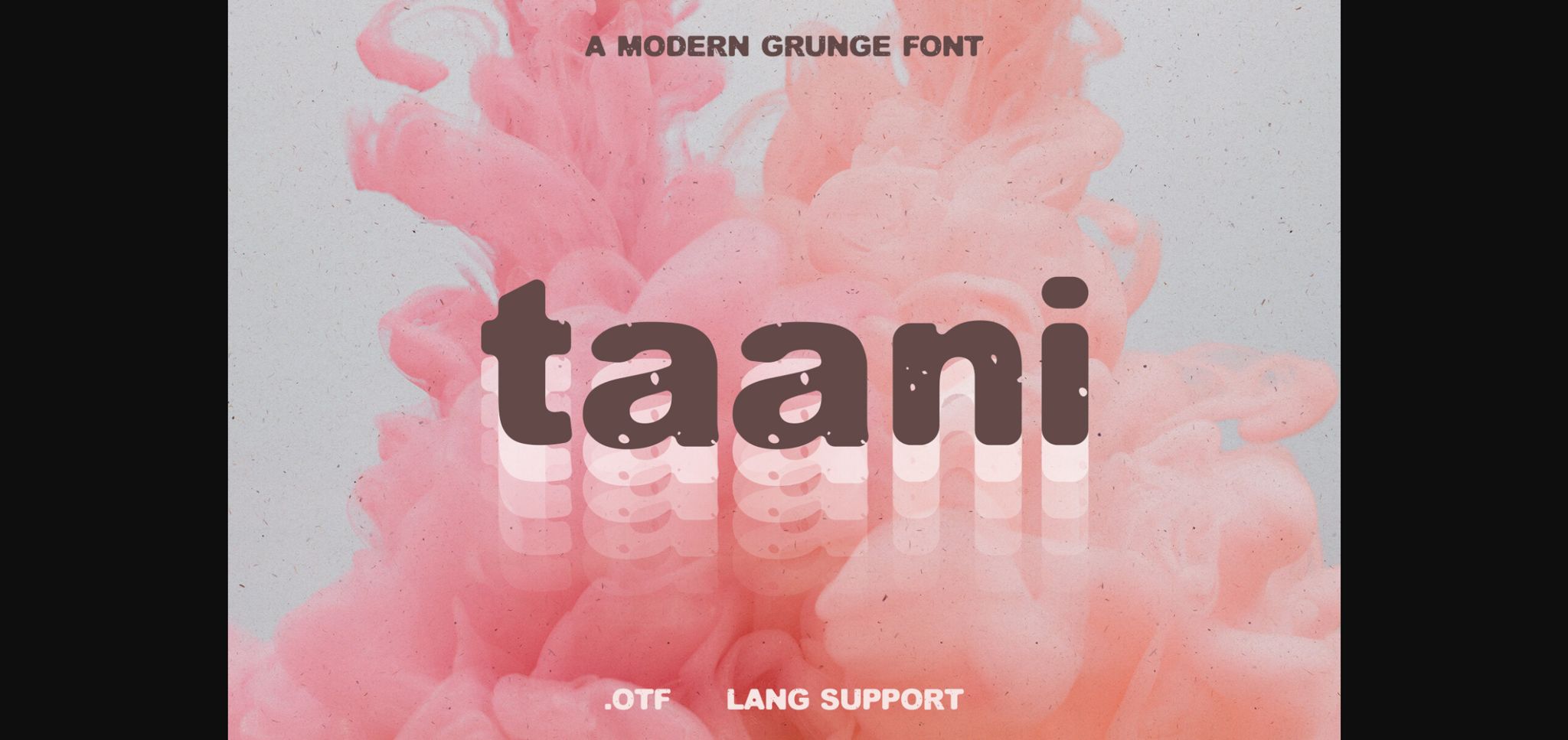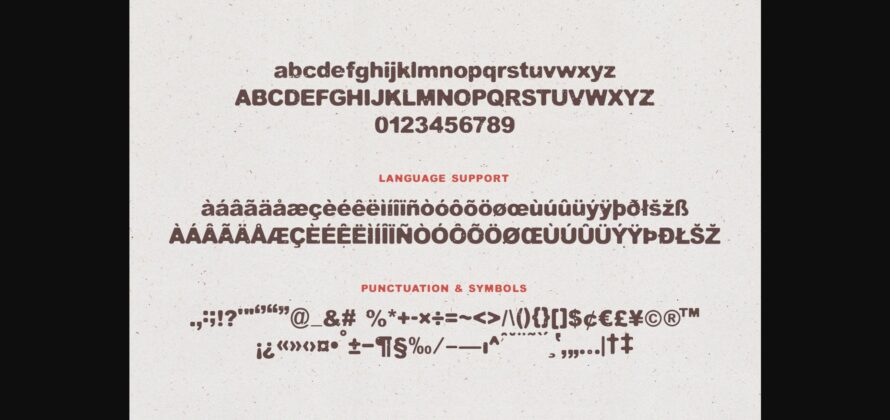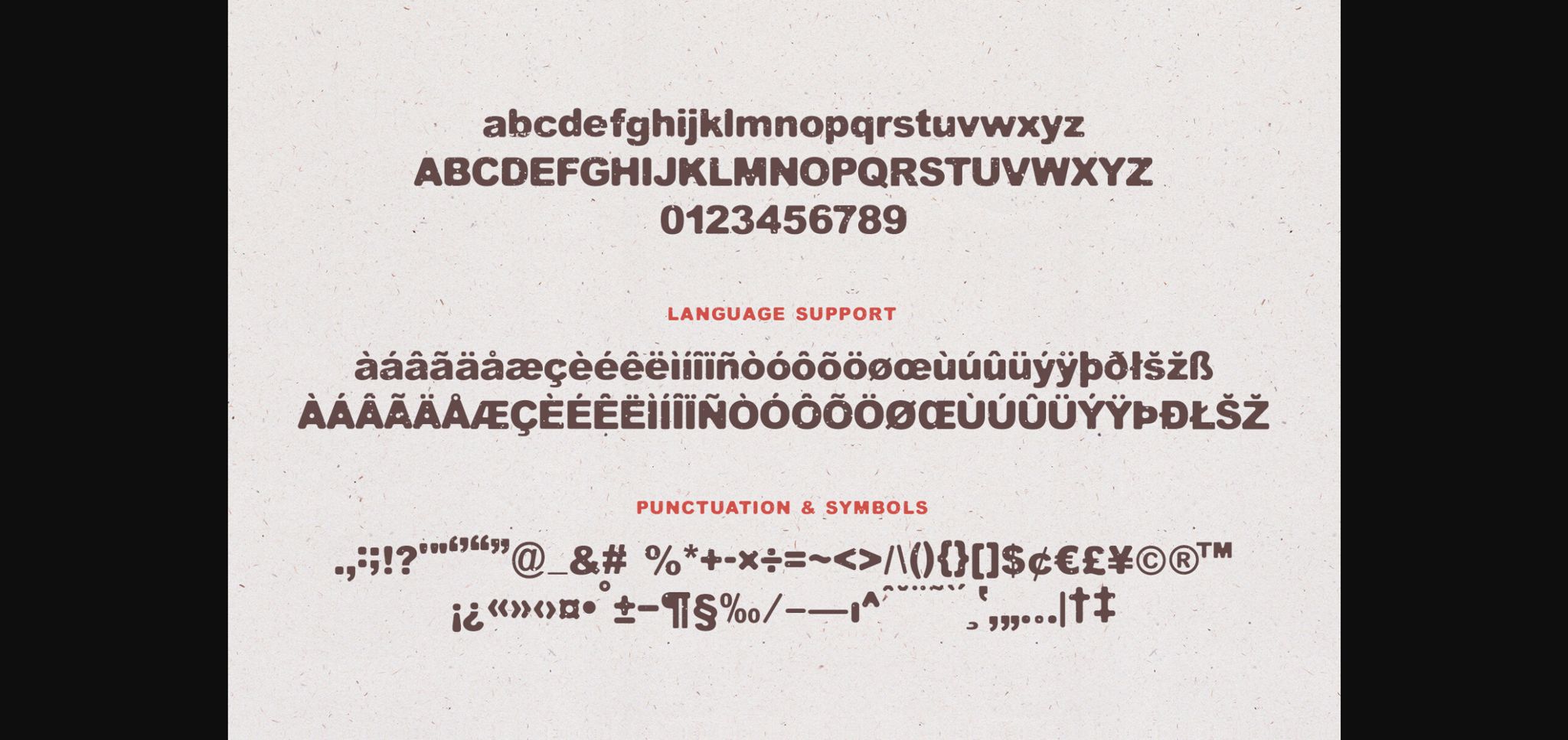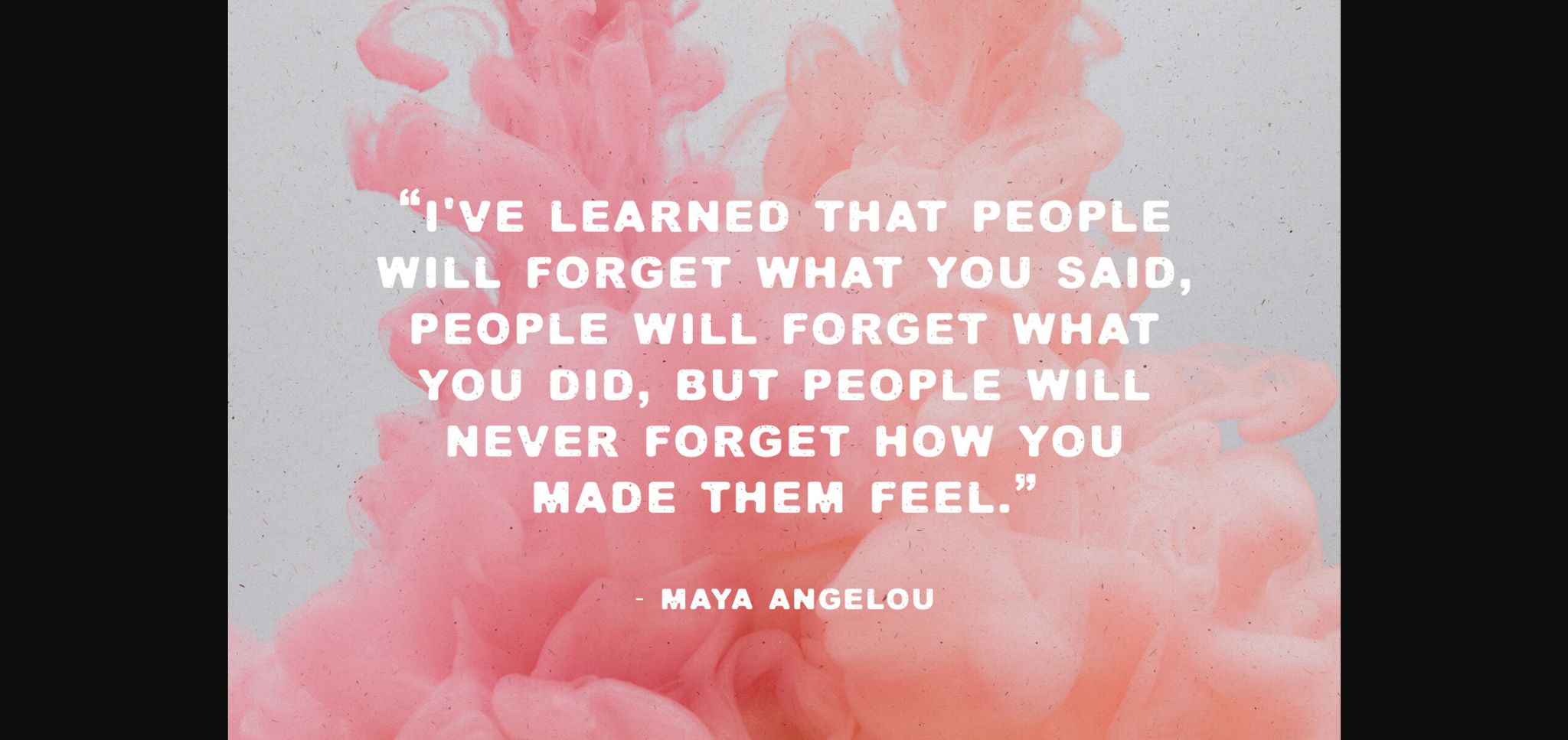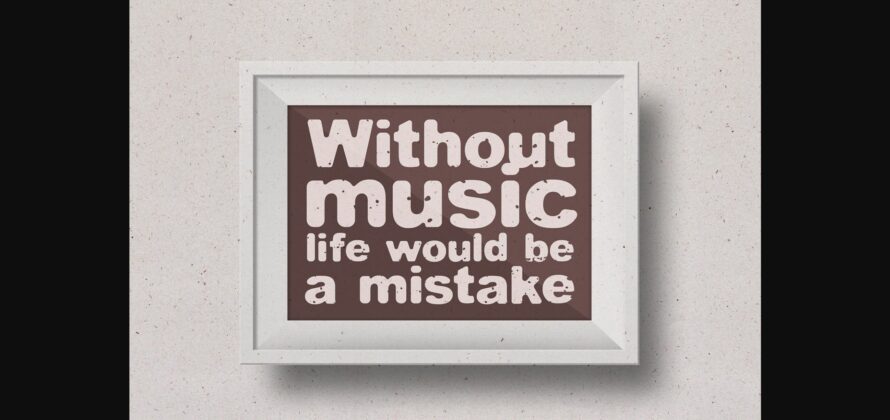
Taani Font
About Taani Font
Introducing Taani, a gorgeous soft-grunge sans serif font with thick, chunky lines and cute curves. This font is wonderful for modern branding and design.